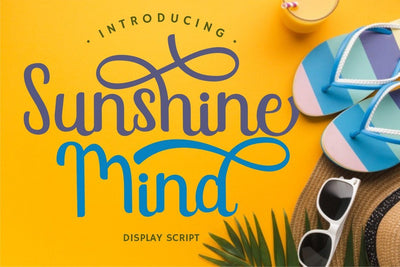
Sunshine Mind - Display Script Font
Sunshine Mind
Sunshine Mind is a display script font. This font is especially perfect for crafters,
Sunshine Mind is perfect for crafting, svg designs, logotype creation, lettering compositions, wedding invitations, fashion projects, book design cover, magazines typography, cards, packagings, posters, branding and more.